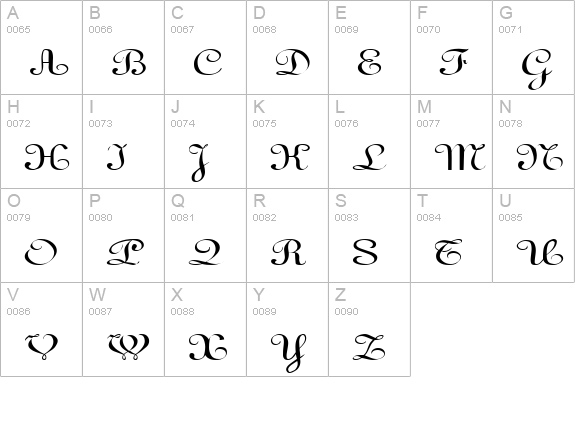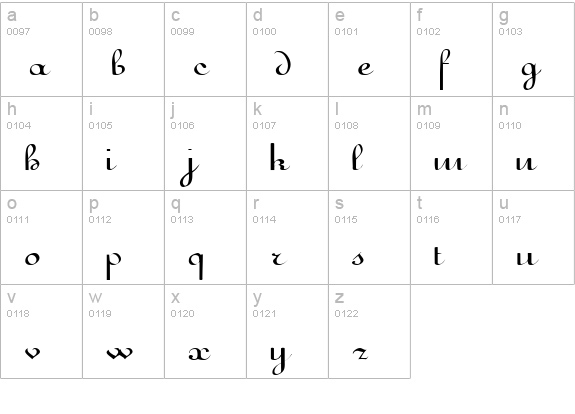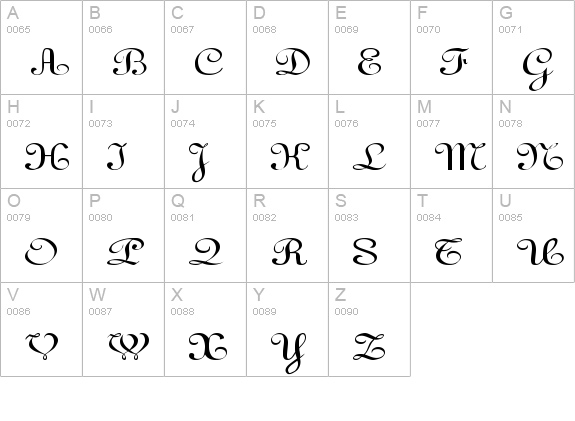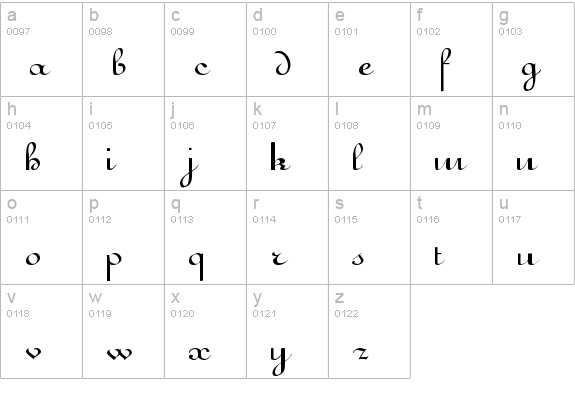
Ricarda Font Details
Ricarda font is a stunning display typeface that exudes elegance and sophistication. This font is perfect for adding a touch of luxury to your design projects, whether it be for branding, invitations, or editorial purposes. With its sleek lines and graceful curves, Ricarda font brings a sense of refinement to any text it graces. What makes Ricarda font even more appealing is that it is available for free download at FontsMarket.com. This means that you can easily access this beautiful typeface and use it in your creations without any cost. Don't miss out on the opportunity to enhance your designs with the timeless beauty of Ricarda font. Download it today and elevate your projects to new heights of style and sophistication.